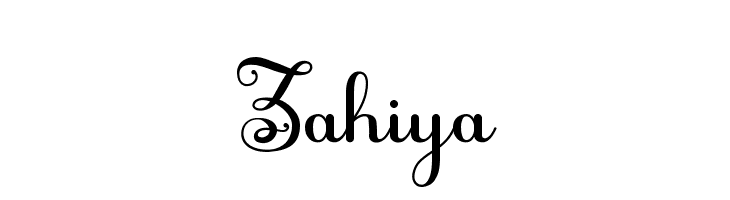
A graceful script font with flowing, interconnected characters and elegant flourishes.
A cursive, handwritten font with elegant, flowing strokes.
A flowing, cursive script with smooth, rounded edges and consistent stroke width.
A playful and elegant handwritten script font with a modern, whimsical style.
An elegant and decorative script font with intricate swirls and loops.
An elegant, flowing script font with a handwritten style.
A modern, elegant script font with flowing, cursive lines.
A classic and elegant script font with flowing, connected letterforms.
An elegant, flowing script font with interconnected letterforms.